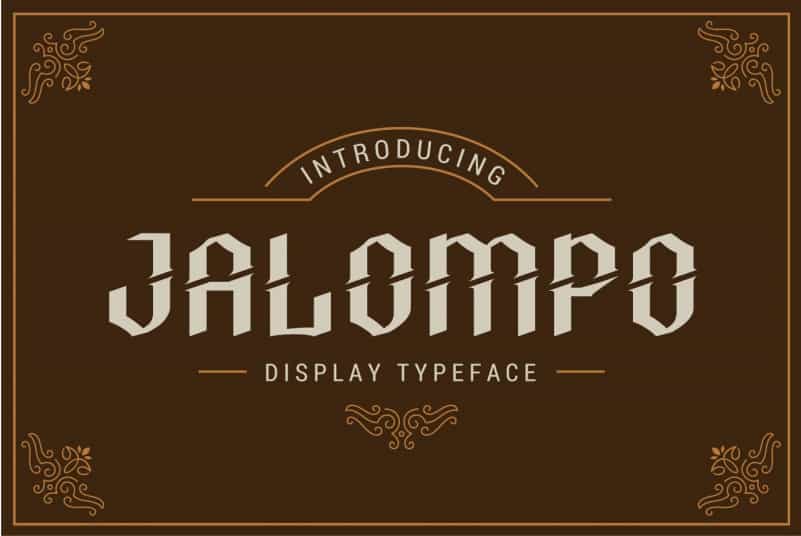
Jalompo Font
Jalompo Display Font
Jalompo Display Font is a display typeface with high shaped characters to support your brand/project.
Jalompo is perfect for projects such as logos & branding, headlines, posters, signage, advertisements, printed quotes, product packaging, product designs, label, photography, watermark, special events or anything.